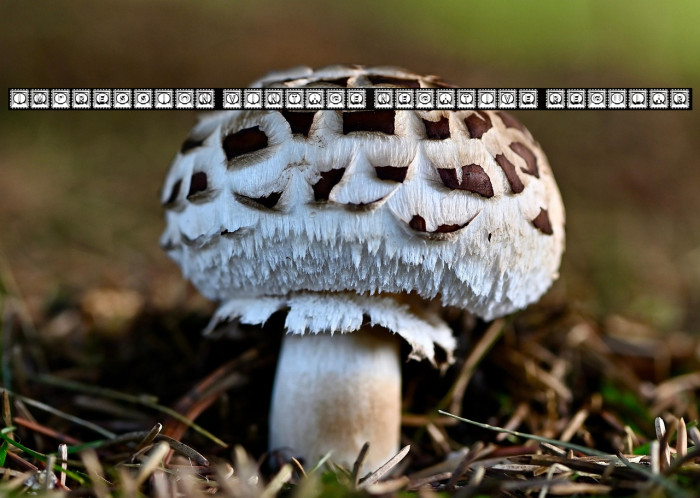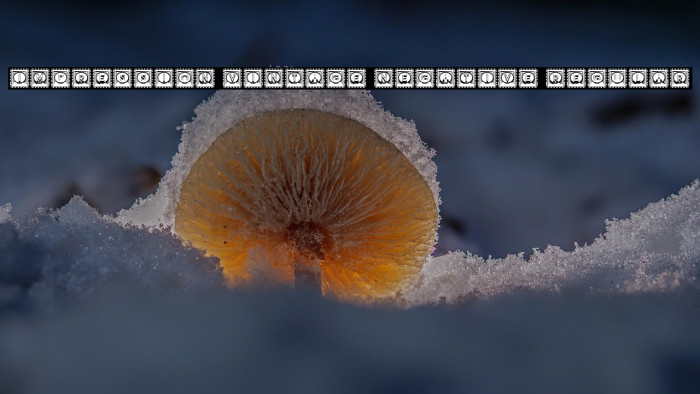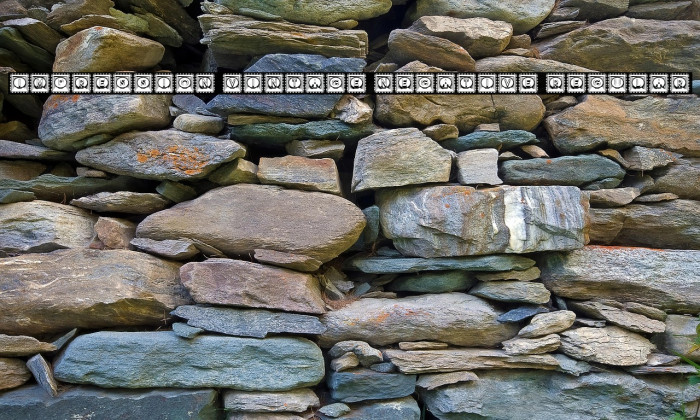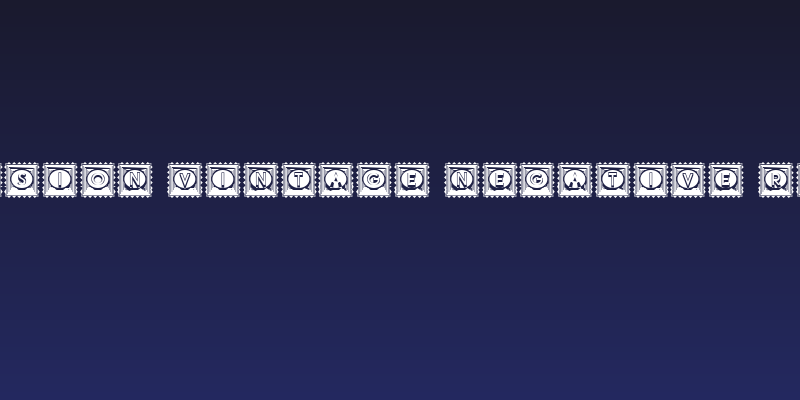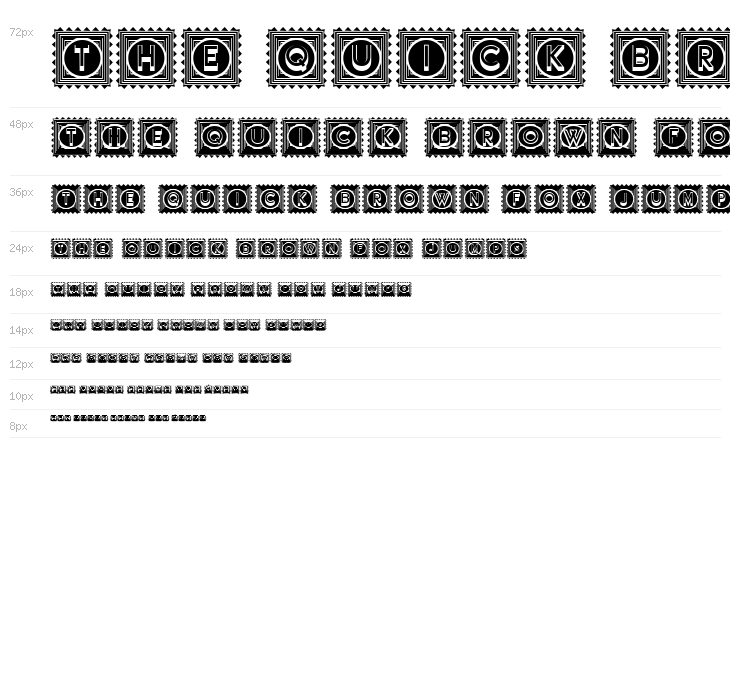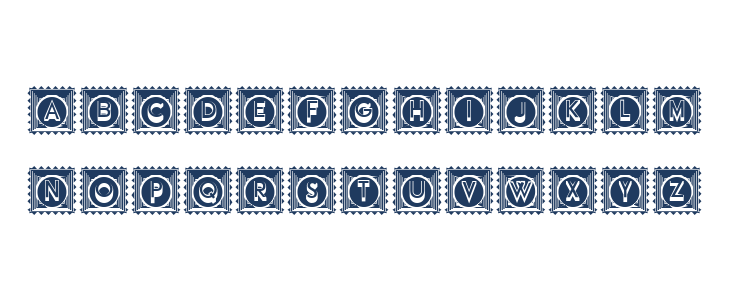
Impression Vintage Negative Regular Font
Impression Vintage Negative Regular Description
This font features a unique vintage style with each character enclosed in a decorative, stamp-like border. The letters and numbers are bold and prominent, set against a dark background that enhances their visibility. The design incorporates intricate patterns around each character, giving it a nostalgic and artistic feel. The font is highly decorative, making it ideal for projects that require a touch of elegance and historical charm. Its distinct appearance is reminiscent of old postage stamps or vintage signage, offering a sense of timelessness and sophistication.
| Proposed Projects | Ideal for vintage-themed posters, invitations, branding, and packaging designs. |